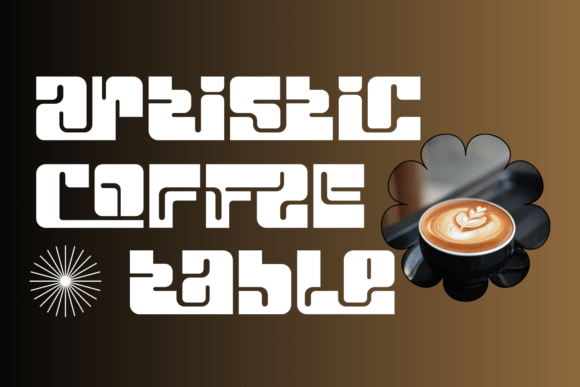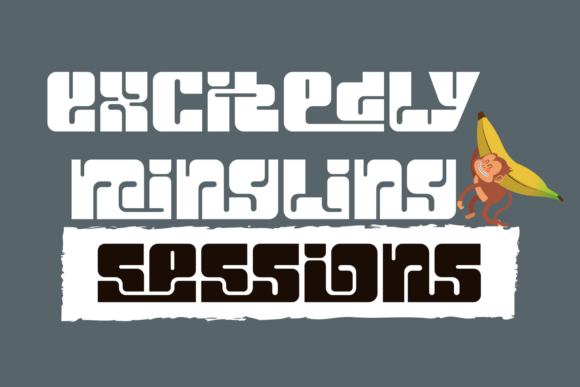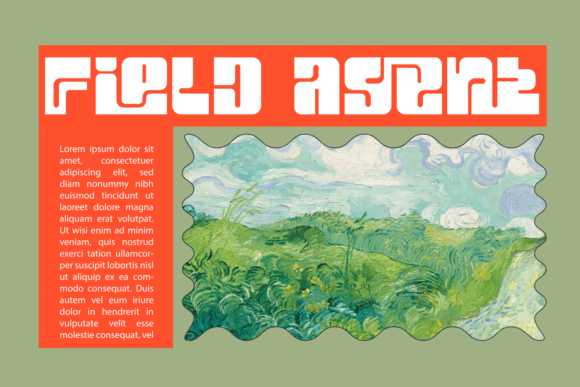
Introduction to Central Society Font
Central Society Font – This playful and cheerful display font combines boldness with a condensed style, making it perfect for adding a touch of personality to your designs.
Contains everything you need to create stunning typography – from headline fonts to body text fonts all in one place Can be used for modern and vintage designs, and also can be easily paired with some graphic elements (illustration, photography) this font is perfect for, logotype, branding, title, and packaging.